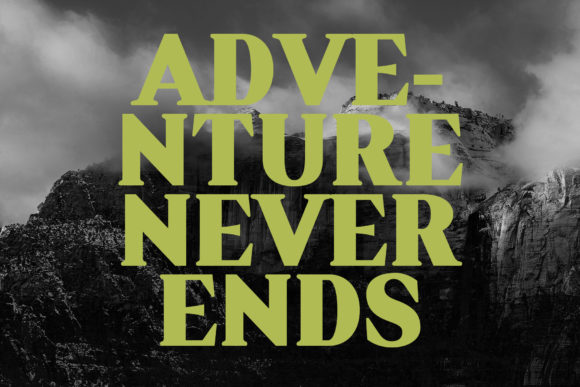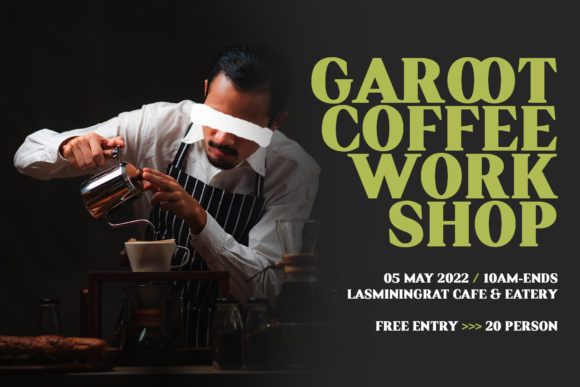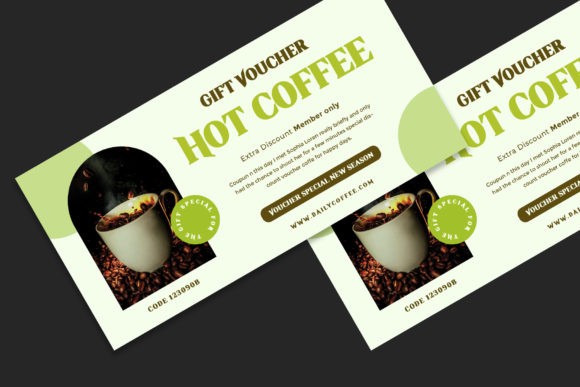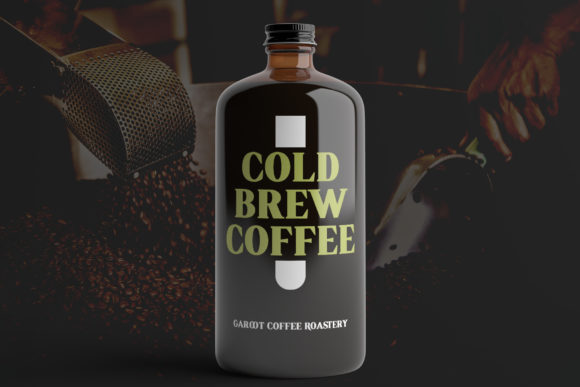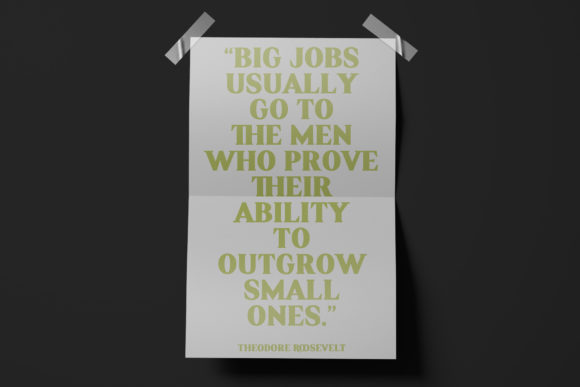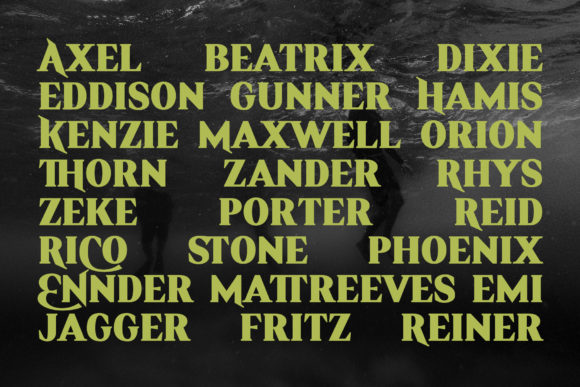
Introduction to Revon Font
Have you ever stared at a blank page, desperately searching for the perfect font to bring your creative project to life? For designers, this moment is all too familiar. But what if you stumbled upon a font that not only meets but exceeds your expectations? Enter the Revon Font, a bold and assertive serif font that’s sure to elevate any design.
Whether you’re working on a high-quality brochure, a design project with a transparent background, or simply need a reliable design resource, the Revon Font is an incredible asset to have in your library. With its versatility and unique style, this font has the potential to breathe new life into even the most mundane creations.
Key Features of Revon Font
- High-quality design resource suitable for various creative projects, including digital art, graphic design, and web development.
- Includes a comprehensive character set, supporting multiple languages and script styles.
- Perfect for use in a wide range of creative projects, from logos and branding to digital signage and web graphics.
Honest Review: Revon Font
The font itself is quite versatile and can be used in a variety of settings, from body text to headings. I was impressed by its legibility and the subtle nuances in its design. The transparent background makes it easy to use on any design, and the font’s high quality is evident in its crisp lines and smooth curves.
Here are some features that work well with the Revon Font:
- Legibility: The font is easy to read, making it perfect for body text.
- Customizability: The font’s versatility allows it to be used in a range of settings.
- High-quality design: The font’s crisp lines and smooth curves make it a standout choice.
While the Revon Font is a great addition to any designer’s toolkit, there are a few limitations to consider:
- Limited font styles: The font is available in a limited range of styles.
- Not suitable for all projects: The font’s design may not be suitable for certain types of projects, such as those requiring a more formal tone.
Overall, I’m impressed with the Revon Font. Its high quality, versatility, and free availability make it a great resource for designers. While it may have some limitations, it’s definitely worth considering for your next creative project. ✨
Common Use Cases for Revon Font
Revon Font is perfect for a variety of design projects, including logos, graphics, posters, and social media graphics. Its high quality and transparent background make it ideal for designs that require a clean and professional look.